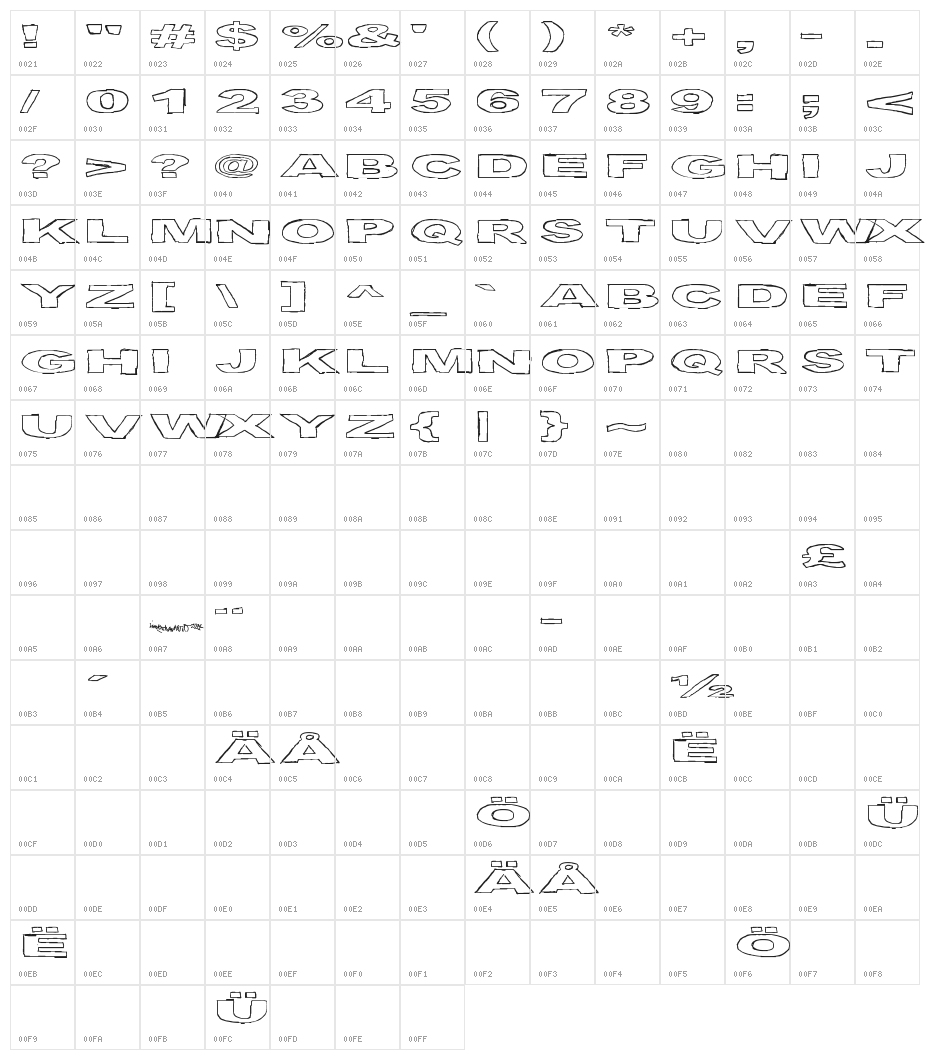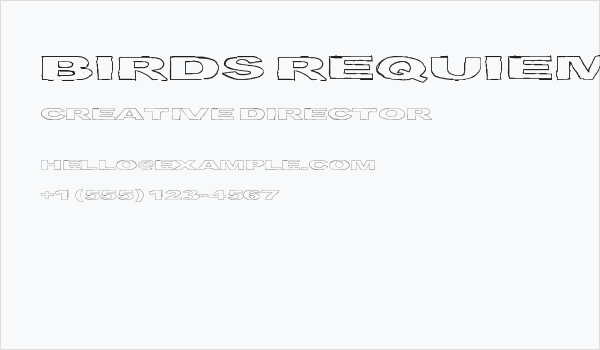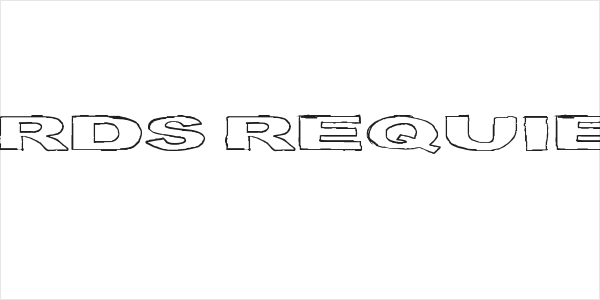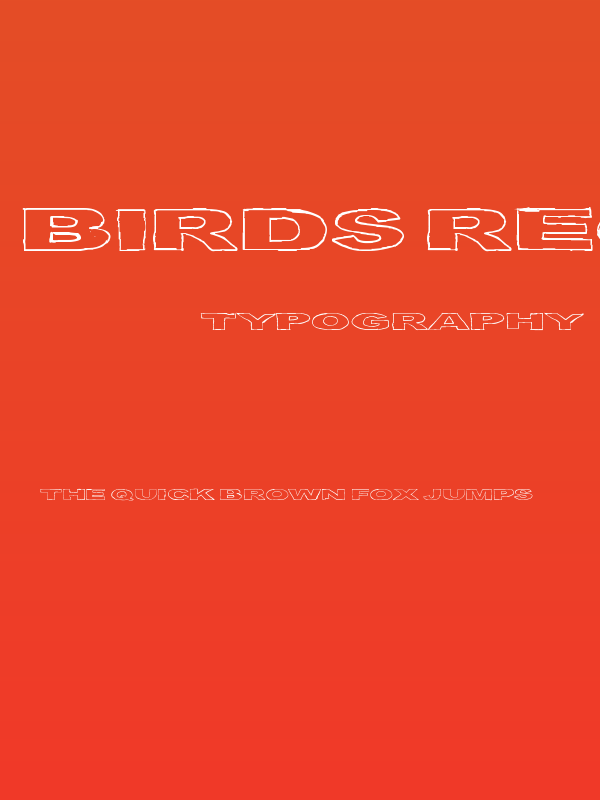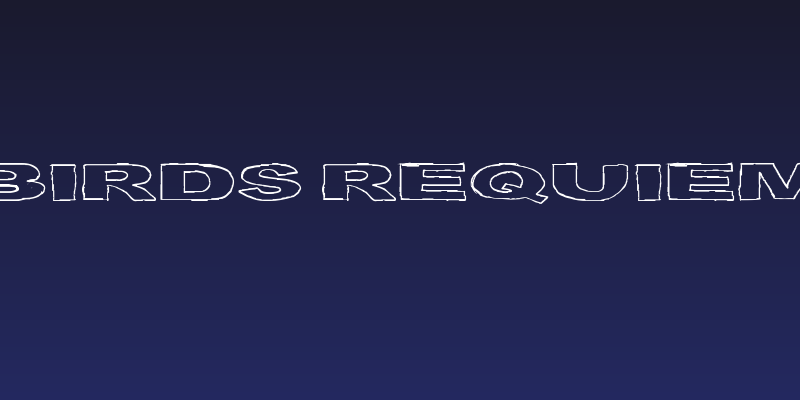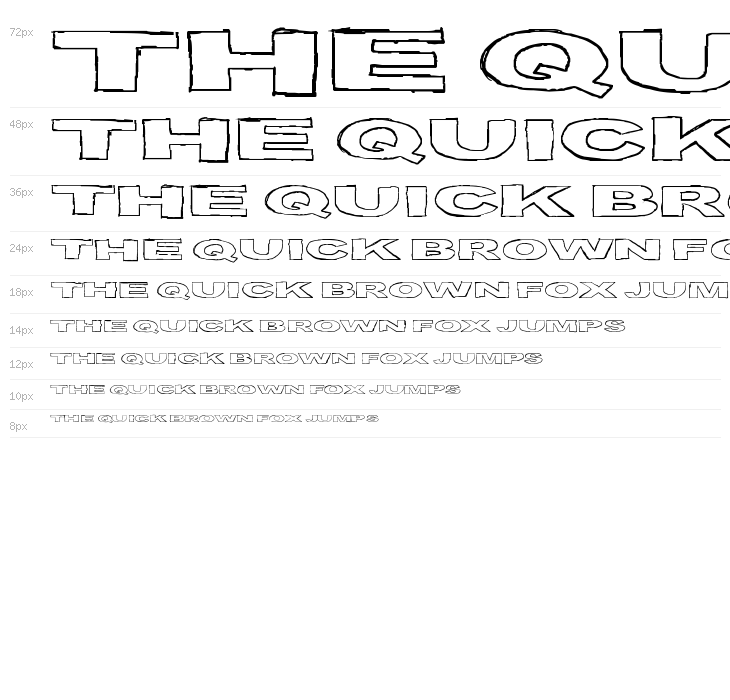
Birds Requiem Font
Birds Requiem Description
This font features a bold, geometric style with a distinct three-dimensional effect. The characters are outlined with a shadow-like detail that gives them depth and a sense of movement. The uppercase letters are strong and commanding, while the lowercase letters maintain the same boldness with a slightly more compact form. The numerals are consistent with the letterforms, offering a cohesive look across all characters. Special characters are included, maintaining the same stylistic elements. This font is eye-catching and ideal for making a statement.